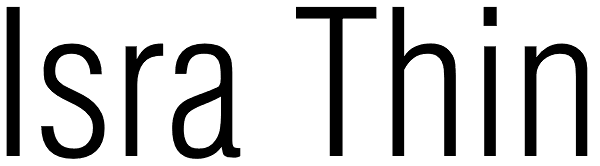
Isra
Isra, designed by Almamoun Ahmed in 2005, is a modern Kufi and a winner in Linotype’s first Arabic Typeface Design Competition. The highly geometric and condensed form make it ideal for magazine headlines, advertising, and general display usage...